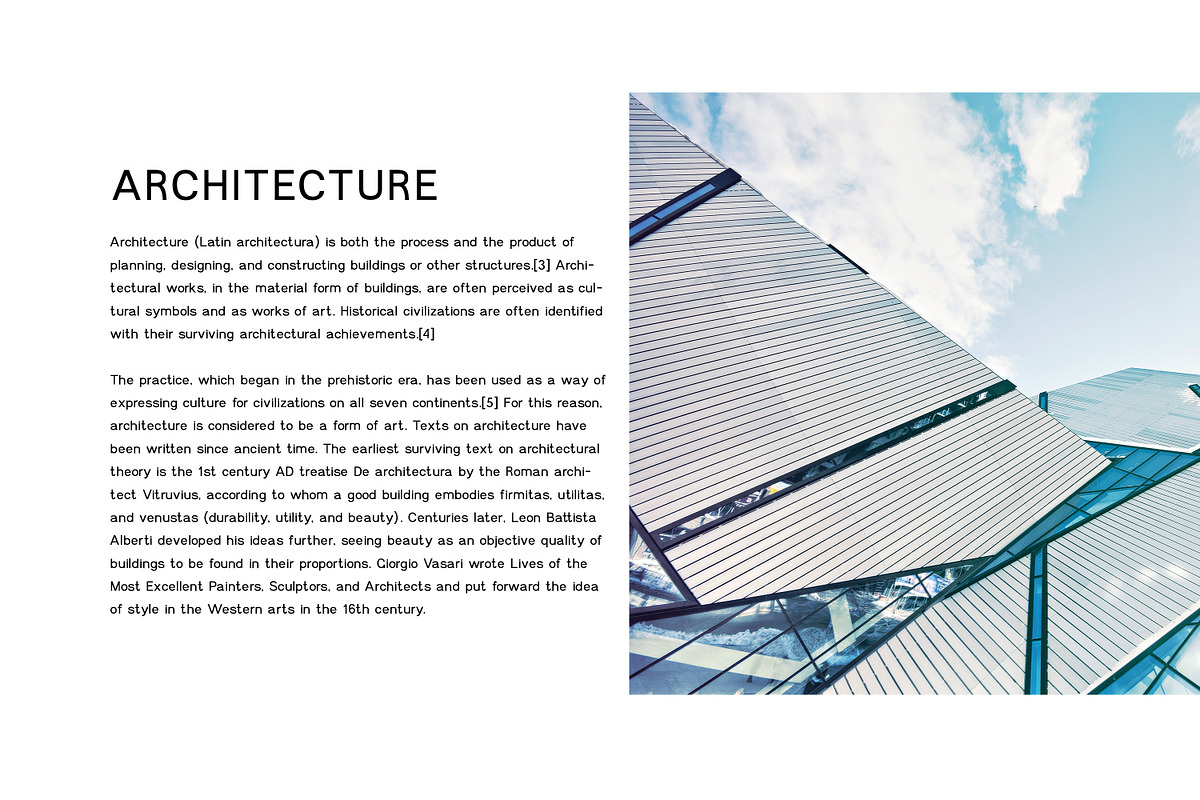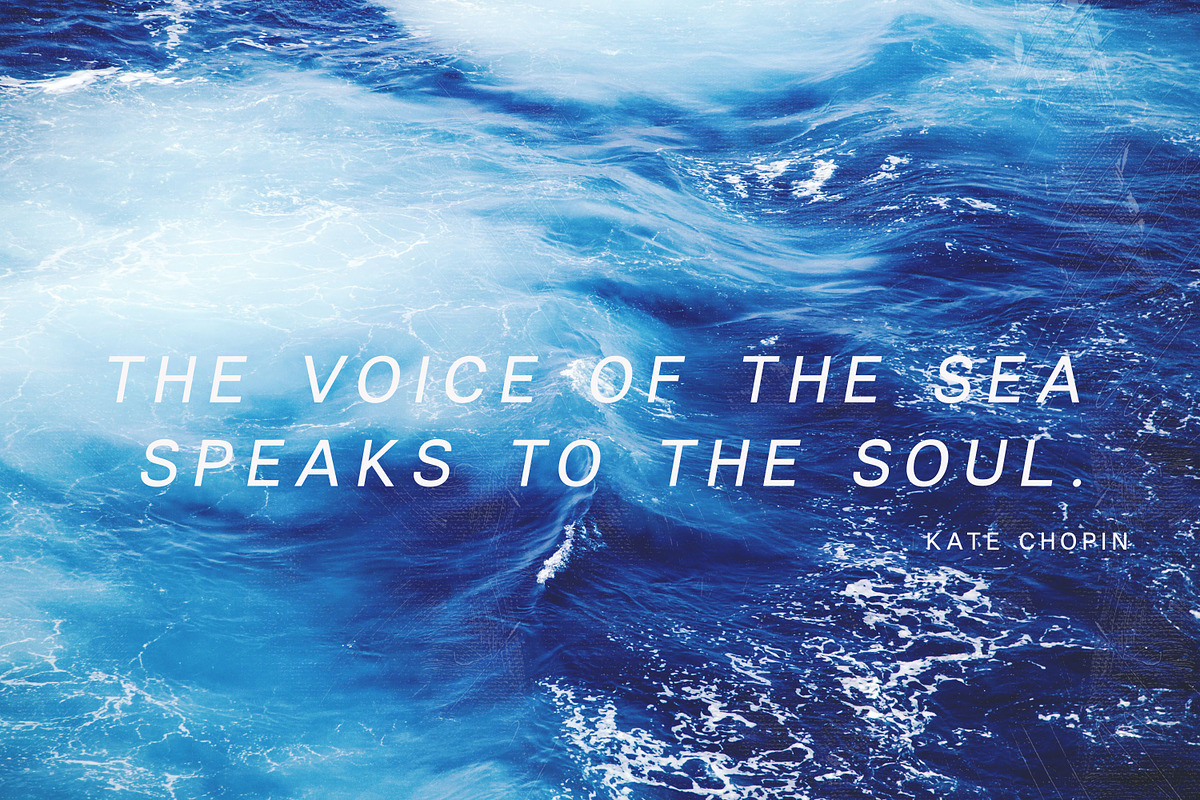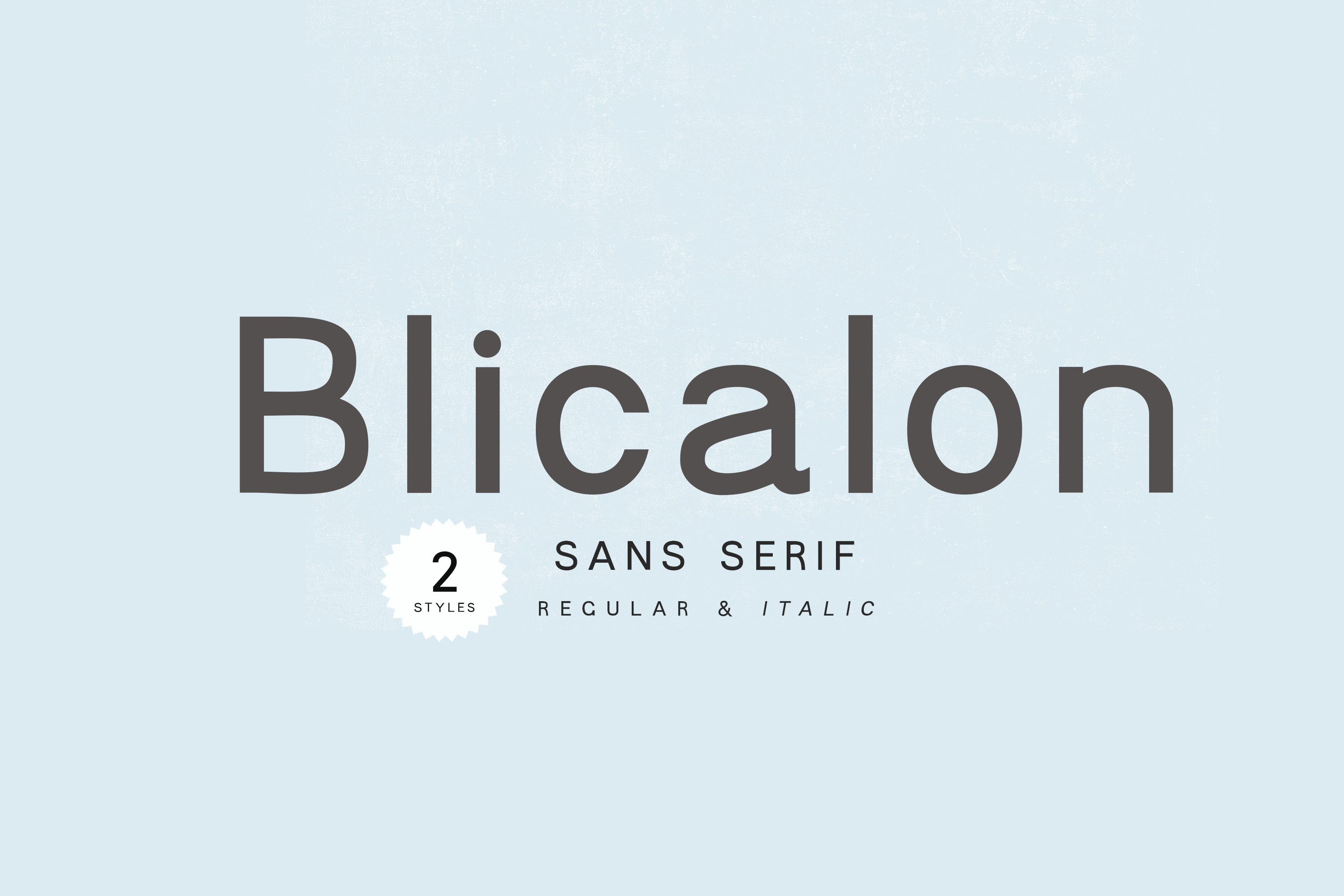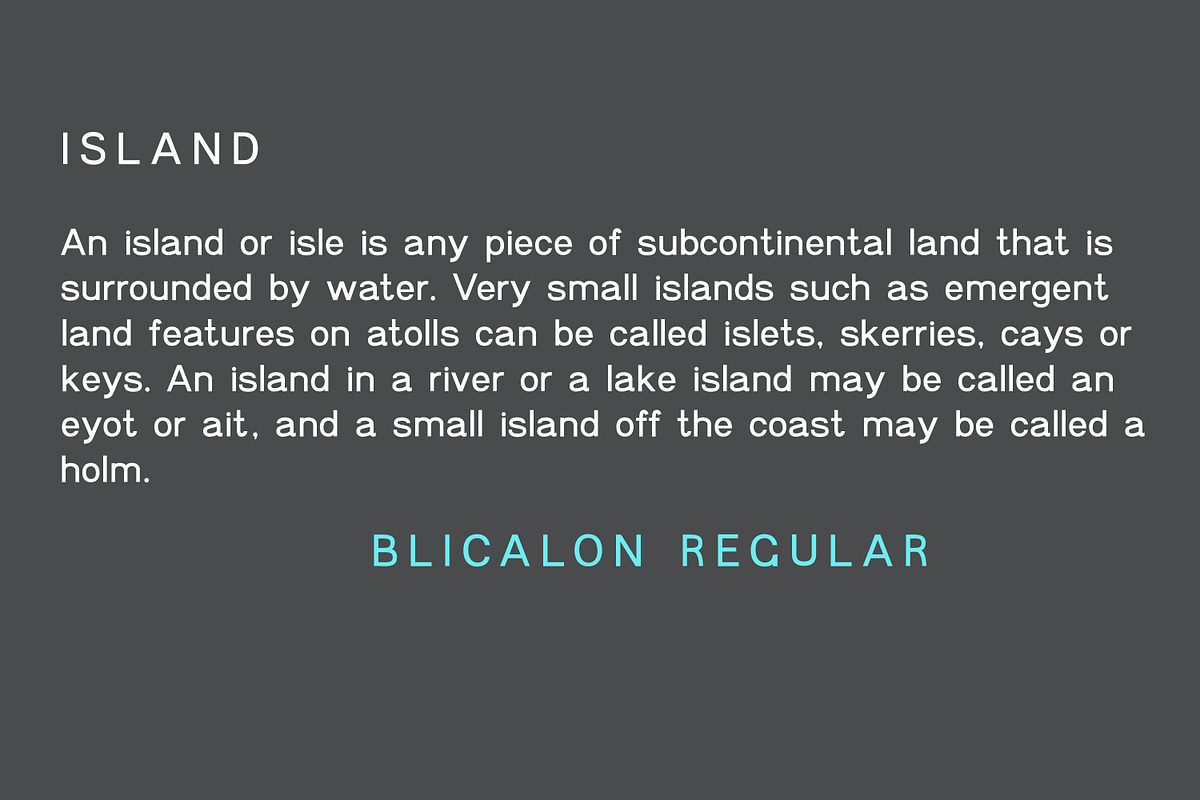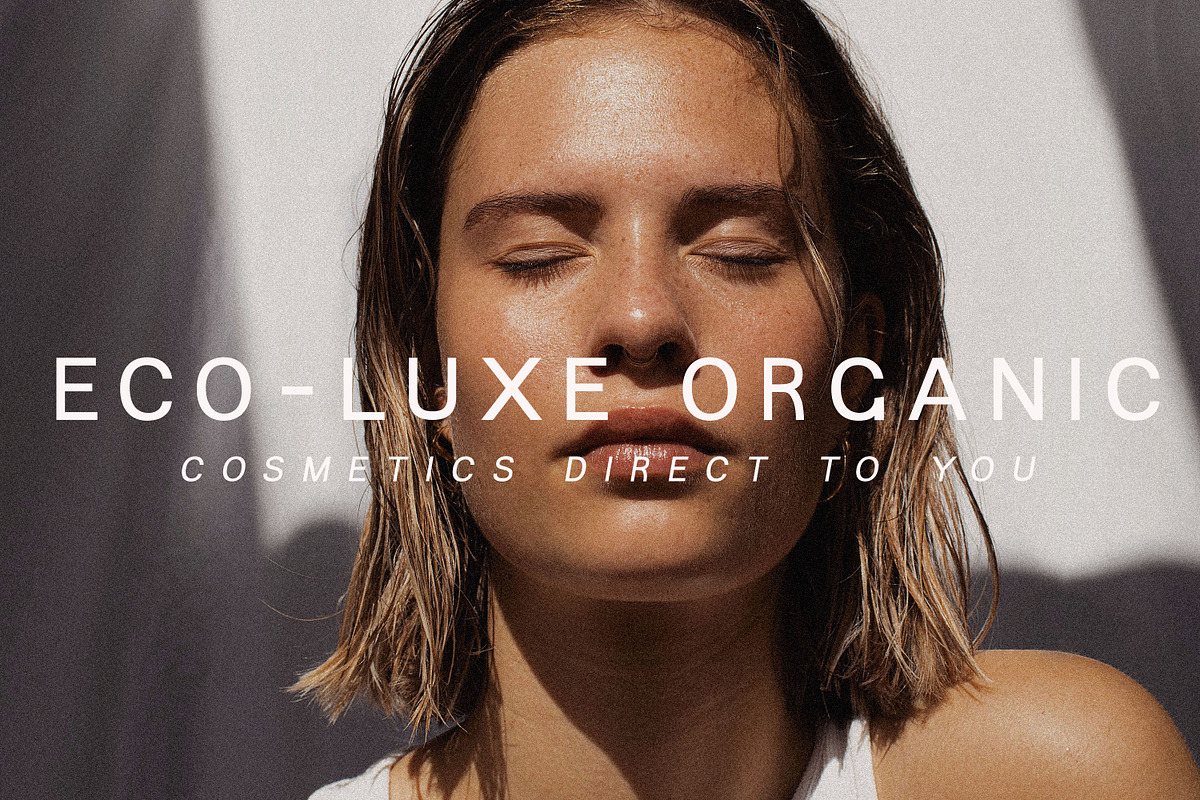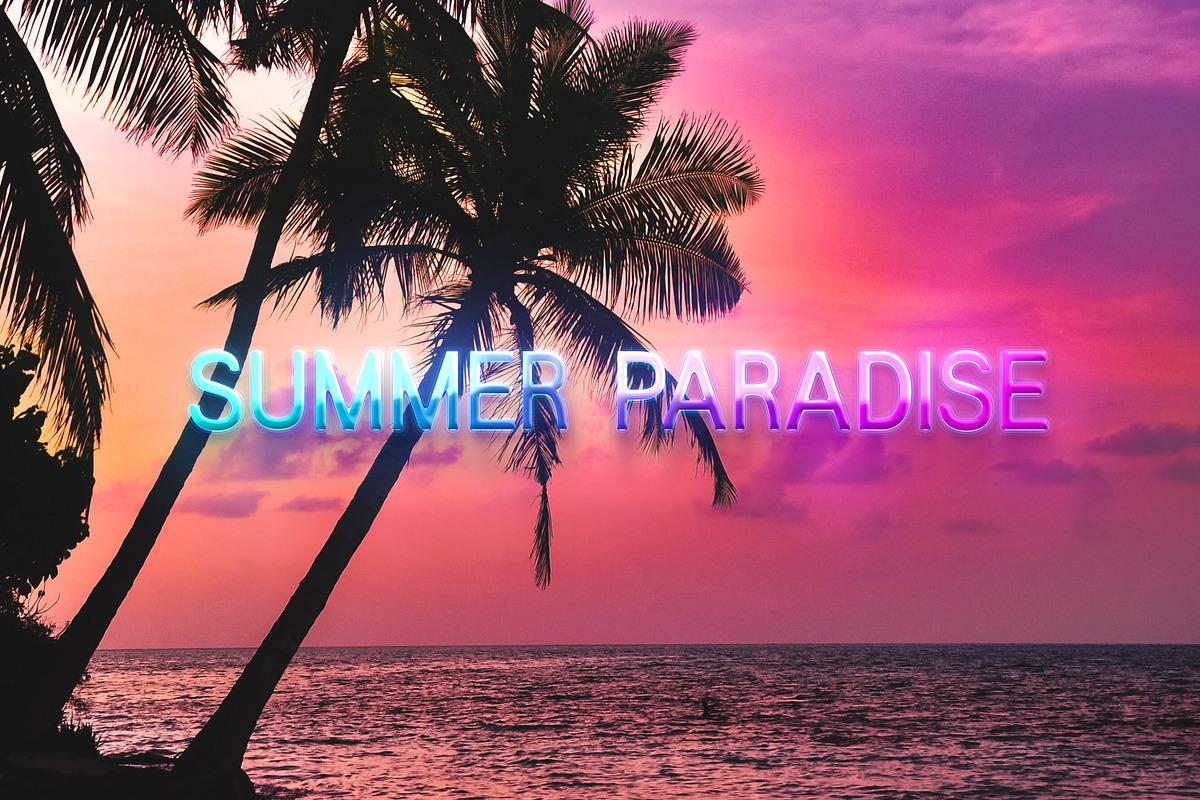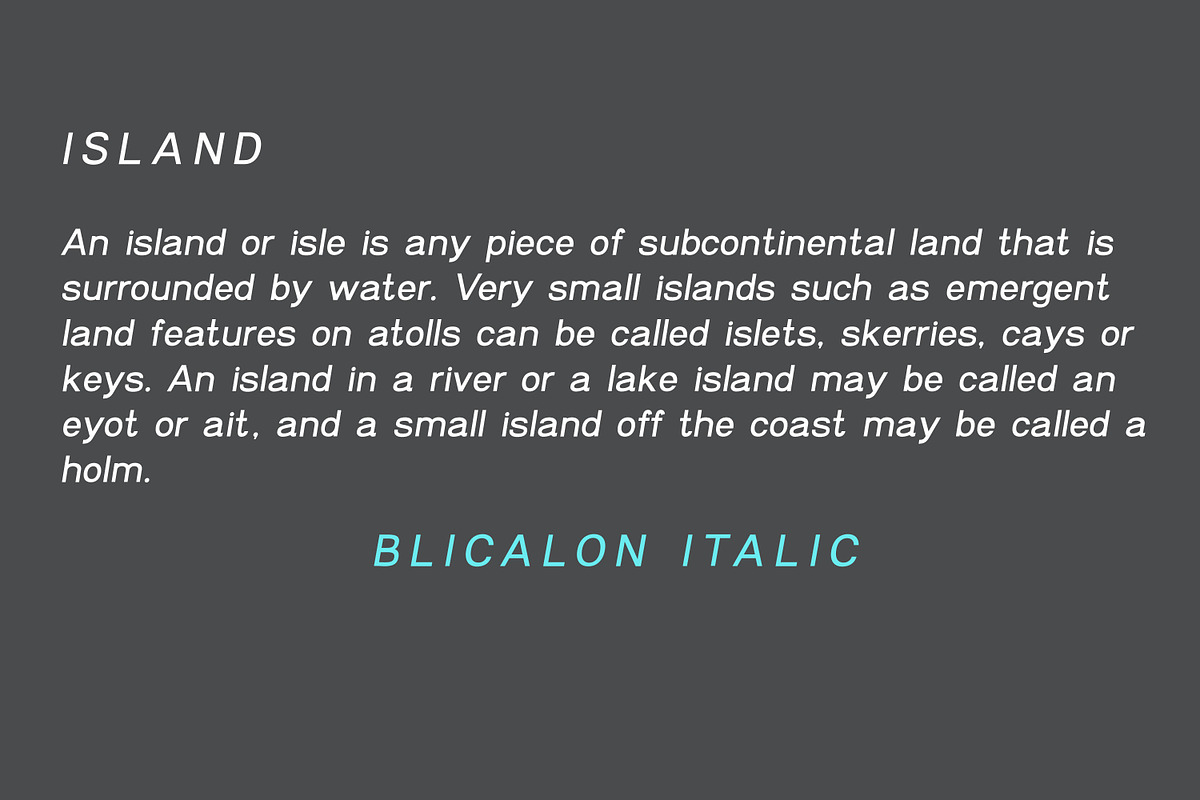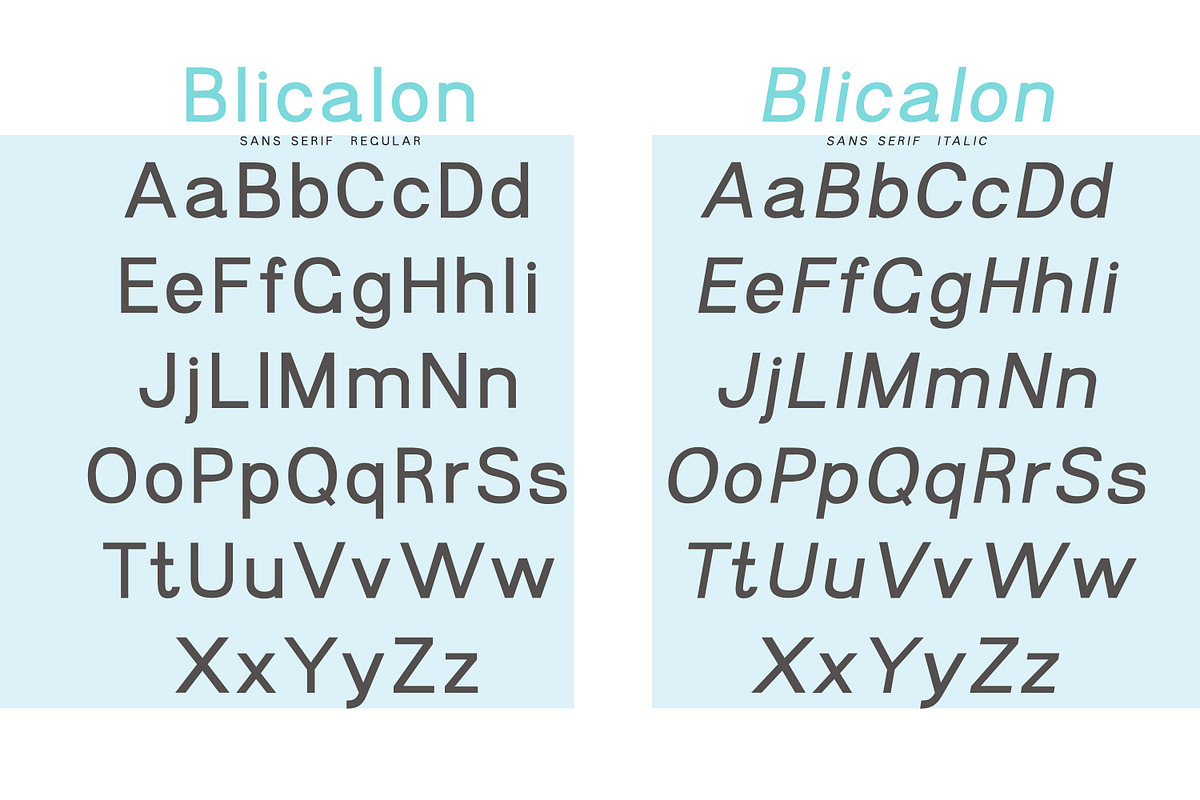
Blicalon - Sans Serif font
Blicalon is a geometric sans serif font with modern look and good legibility. Blicalon aims to be a universal, it works great in headlines, short and long texts, high-end branding, logo designs, magazines, product packaging & invitations. It comes in 2 different styles - regular and italic and is equipped with an extended character set, supporting most European languages.